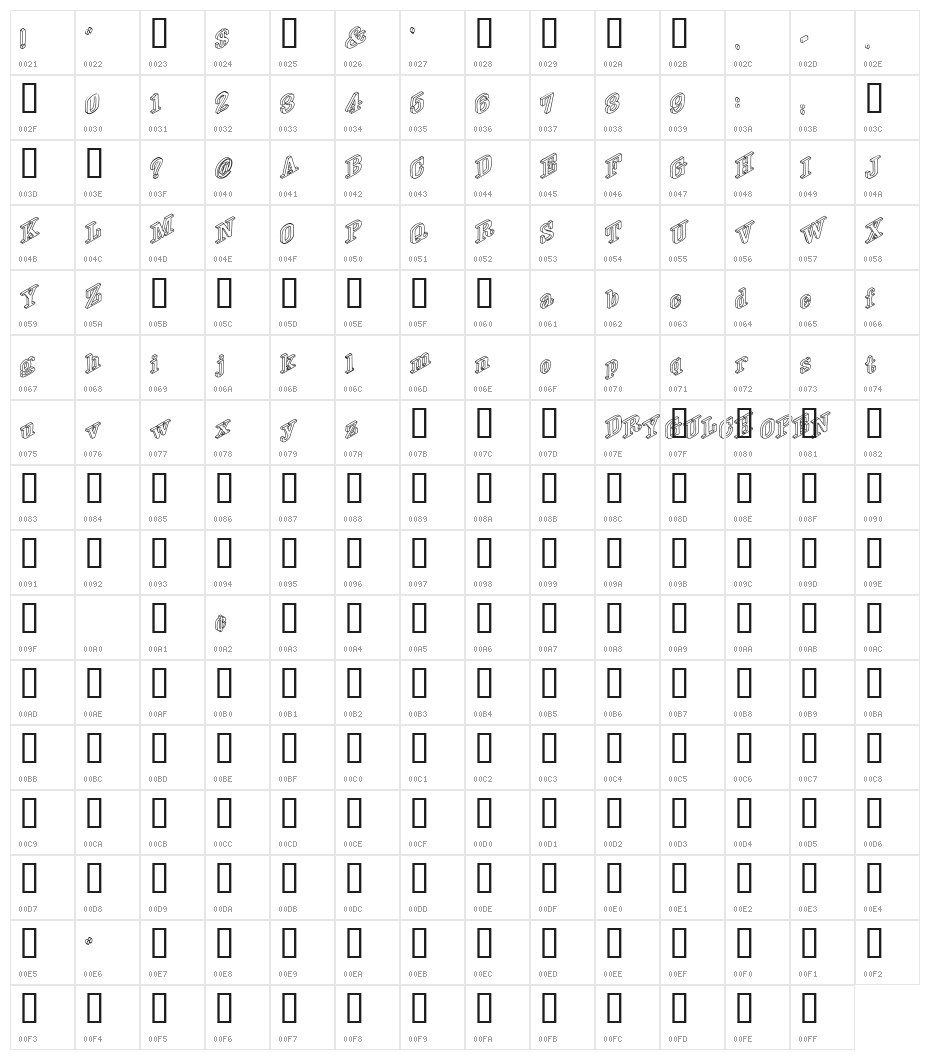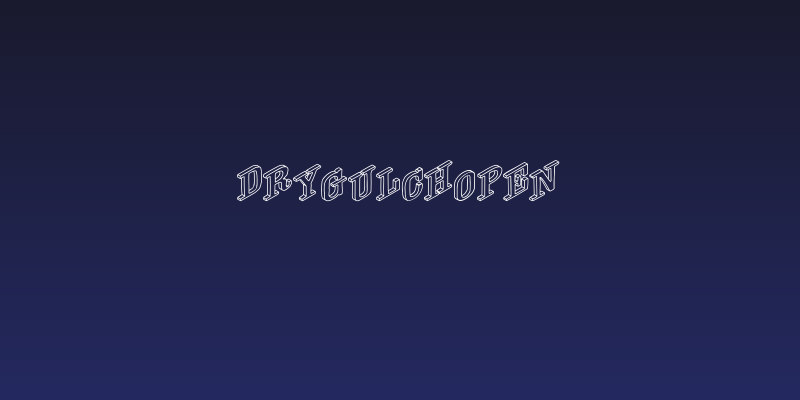
DryGulchOpen Font
DryGulchOpen Description
This font features a bold, three-dimensional outline style that gives each character a distinct, shadowed appearance. The uppercase and lowercase letters maintain a consistent, angular design with sharp edges and a sense of depth. The numerals and special characters follow the same stylistic approach, ensuring uniformity across all glyphs. The font's unique 3D effect makes it stand out, offering a playful yet structured aesthetic. It's ideal for projects that require a strong visual impact, such as posters, headlines, or branding materials. The font's decorative nature is balanced by its clear readability, making it versatile for various design applications.
| Proposed Projects | Ideal for posters, headlines, branding materials, and any design requiring strong visual impact. |